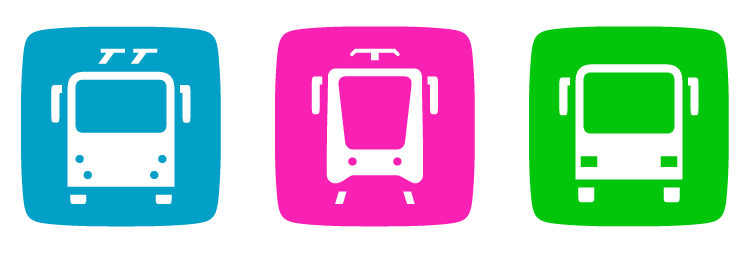
Font name: | Metrofont |
Author: | Denis Serikov |
Note by Denis Serikov | |
MetroFont - symbol font containing navigation and warning signs for transport systems. Web fonts included! |